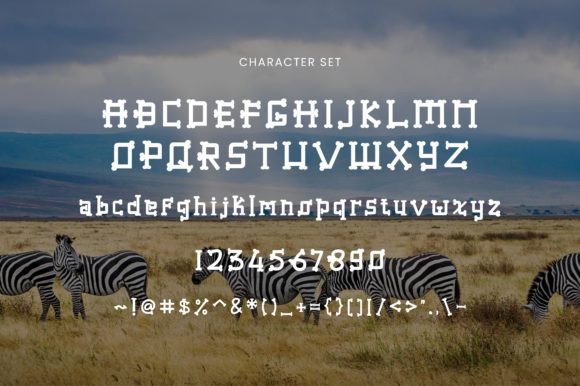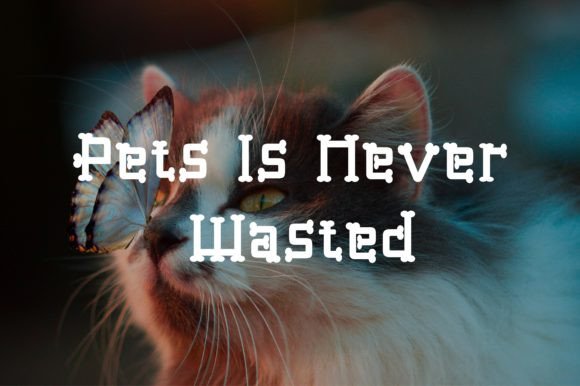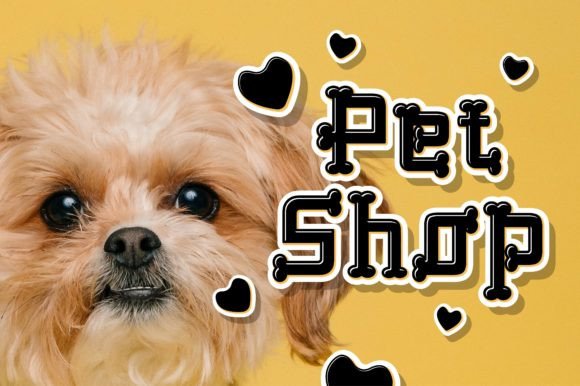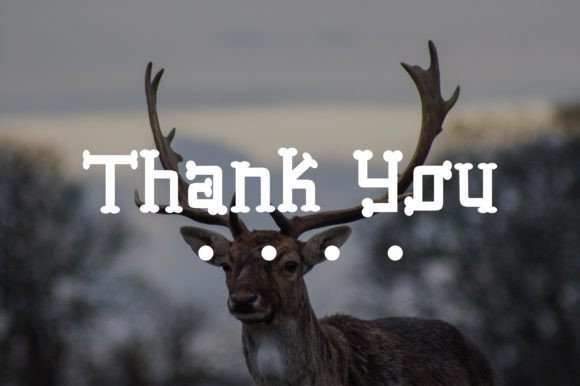
The Bobone Animals Font: A Playful Twist for Your Designs
Have you ever been in the middle of a design project, and suddenly, you’re stuck on finding the perfect font? I recall a recent experience where I was working on a branding project for a pet store, and I just couldn’t find a font that captured the playful, yet modern vibe I was going for. That’s when I stumbled upon the Bobone Animals font, and it completely transformed my design. In this article, we’ll dive into the world of Bobone Animals, exploring its features, uses, and some helpful tips for getting the most out of this fun font.
A Personal Review: What I Love About Bobone Animals
So, what makes Bobone Animals so special? Here are a few things that I absolutely love about this font:
• ✨ Unique Bone-Shaped Concept: The font’s bone-shaped design concept is not only adorable but also incredibly versatile. It adds a touch of whimsy to any project, making it perfect for brands or products that want to stand out.
• ✅ Modern and Playful: Bobone Animals strikes the perfect balance between modern and playful. Its clean lines and casual feel make it an excellent choice for a wide range of design projects.
• ✅ Handwritten Feel: The font’s handwritten feel gives it a personal touch, making it ideal for designs that require a bit of personality and character.
While Bobone Animals is an amazing font, there are a few quirks to be aware of:
• ⚠️ Legibility at Small Sizes: Like many display fonts, Bobone Animals can become a bit tricky to read at smaller sizes. It’s best used for headlines or titles where you want to make a statement.
• 🤔 Limited Formality: Due to its playful nature, Bobone Animals might not be the best fit for more formal or professional designs. It’s perfect for brands that want to convey a fun, approachable vibe.
One of the exciting aspects of Bobone Animals is its support for OpenType features. This means you can access a range of glyphs and stylistic alternates to customize your text. For example:
• Access alternative characters to add more personality to your text.
• Use ligatures to create a more fluid, connected look.
• Experiment with different stylistic sets to find the perfect variation for your design.
The story behind Bobone Animals is one of creativity and passion. While the actual designer may have drawn inspiration from various sources, it’s easy to imagine that the love for animals and playful design led to the creation of this font. Perhaps the designer, an animal lover and creative enthusiast, wanted to create a font that would bring a smile to people’s faces. Whatever the inspiration, Bobone Animals is a testament to the power of creative expression.
What is the best use for Bobone Animals font? Bobone Animals is perfect for logos, branding, social media graphics, and craft products where a playful, modern vibe is desired.
Is Bobone Animals suitable for body text? Due to its playful and decorative nature, Bobone Animals is best used for headlines and titles rather than body text.
Does Bobone Animals support OpenType features? Yes, Bobone Animals supports OpenType features, including glyphs and stylistic alternates, allowing for a high degree of customization.